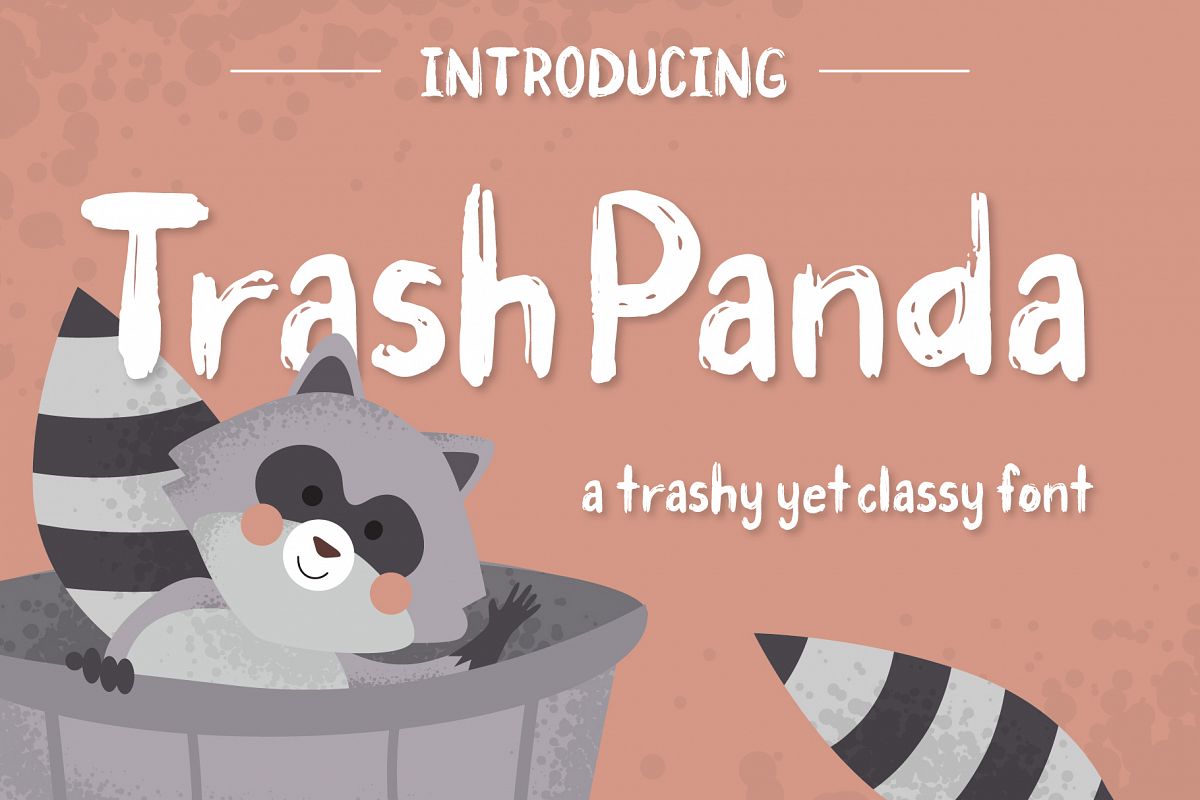
Trash Panda Font
Introducing, Trash Panda! A raccoon I saw inspired me to create a simple clean but textured font that has a personality that is perfect for professional designer, social media, or crafters.